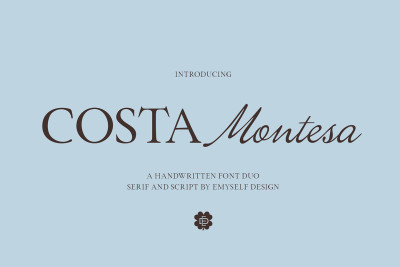
ED Costa Montesa - Handwritten Font
ED Costa Montesa - Handwritten combines clean construction with expressive detail, making it a dependable asset in any type toolkit.